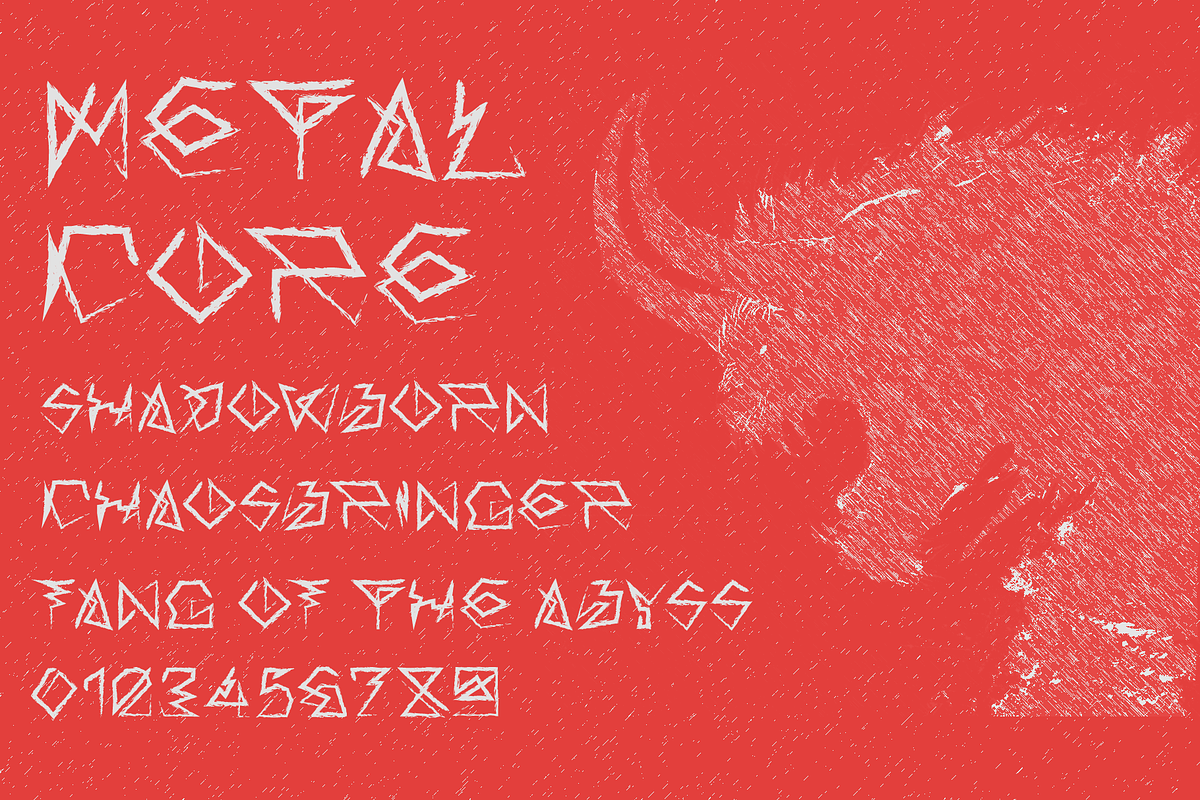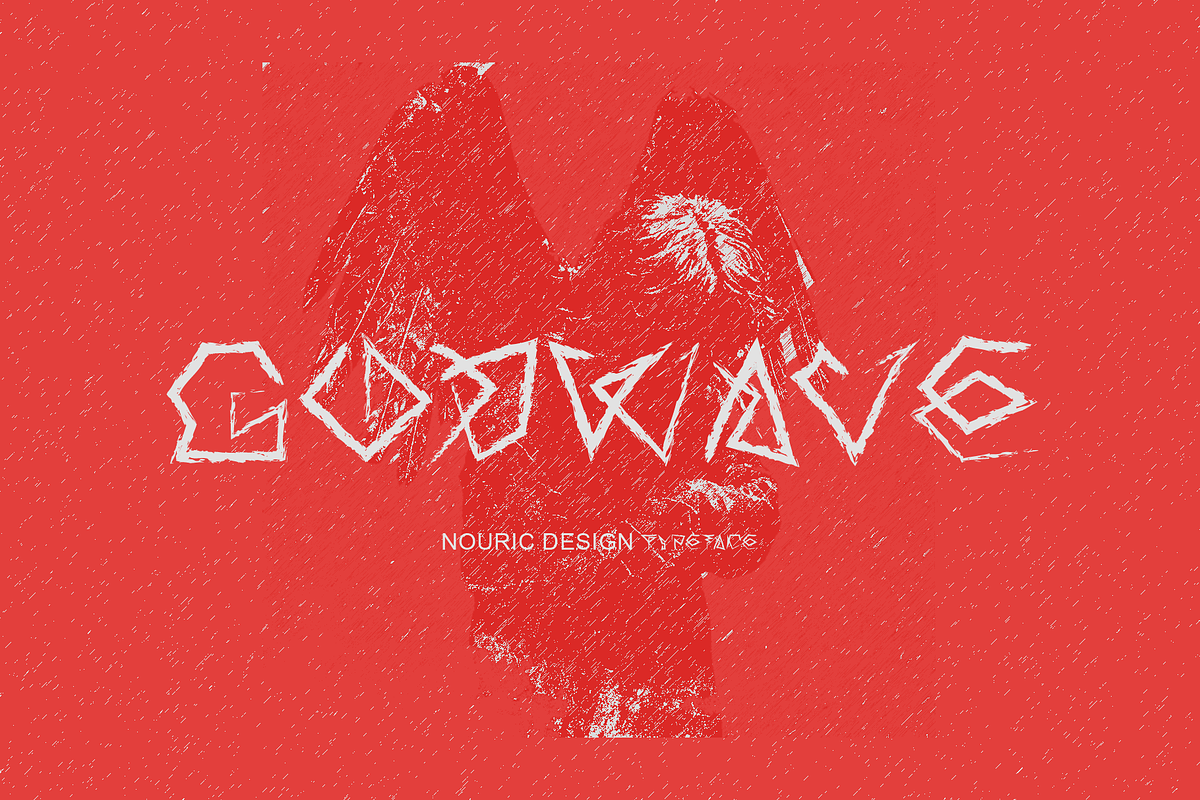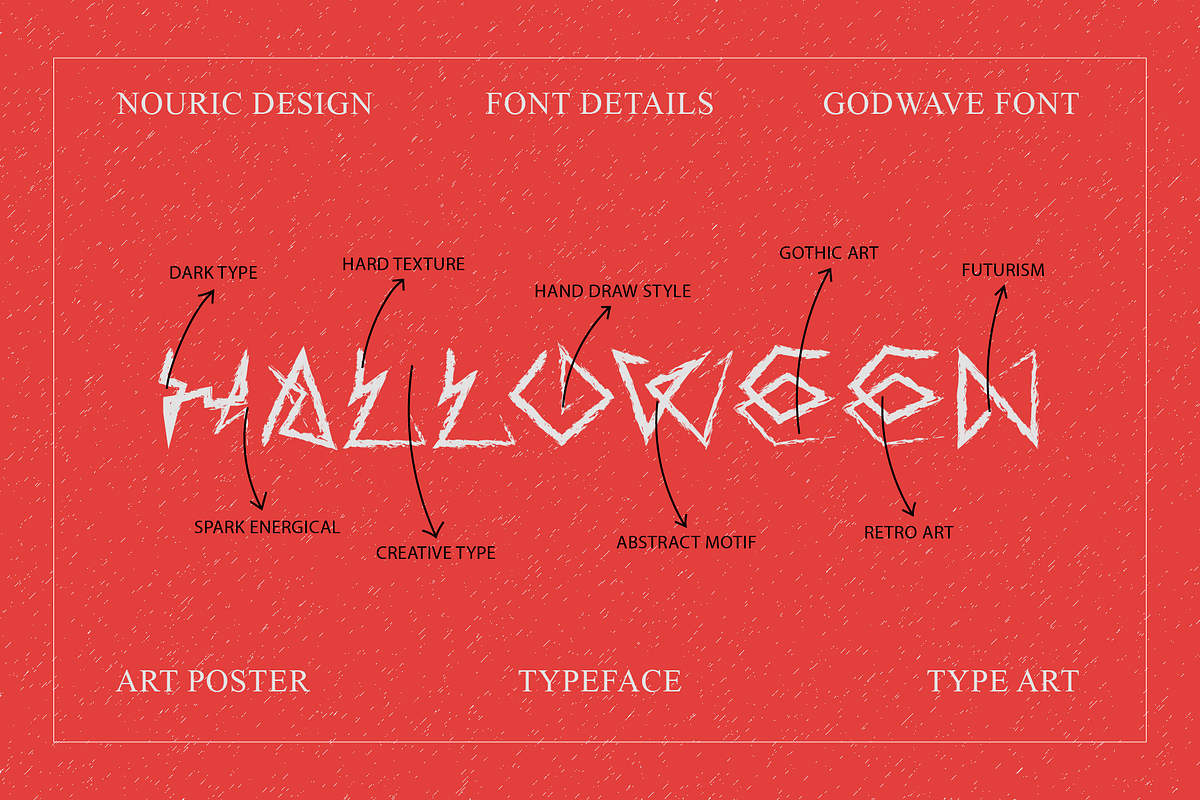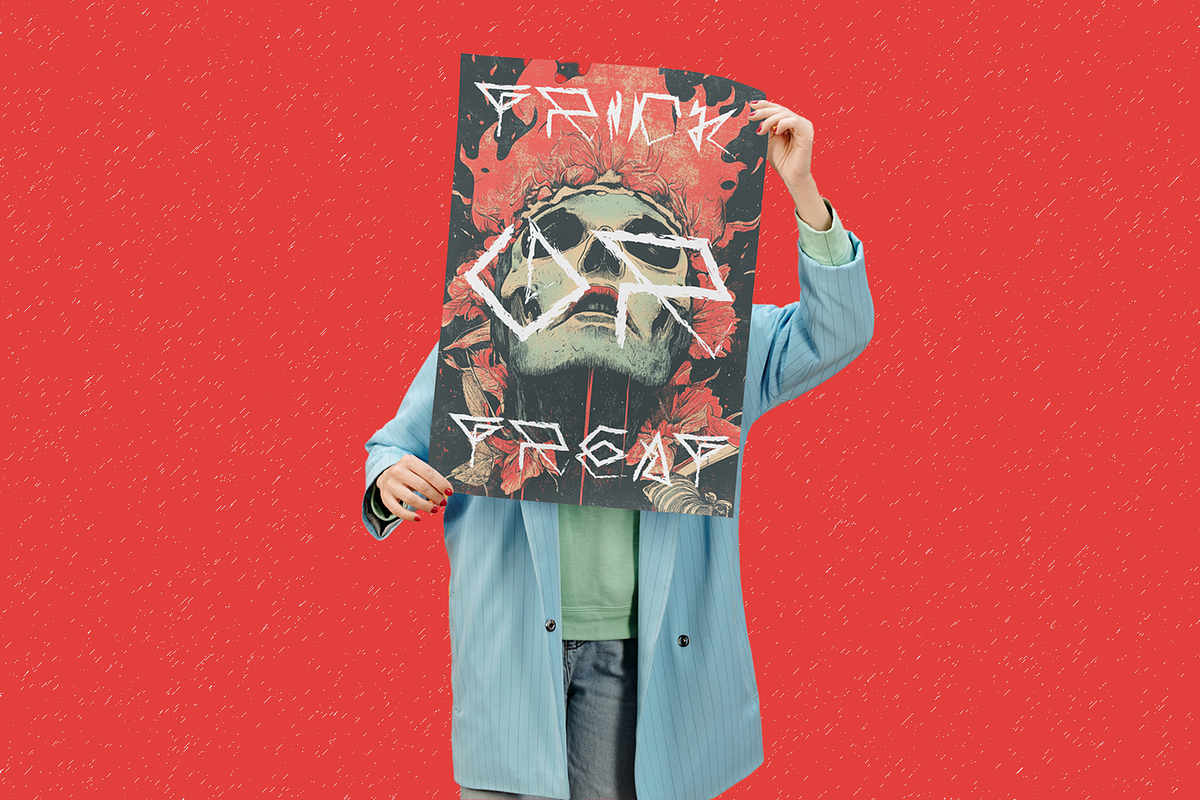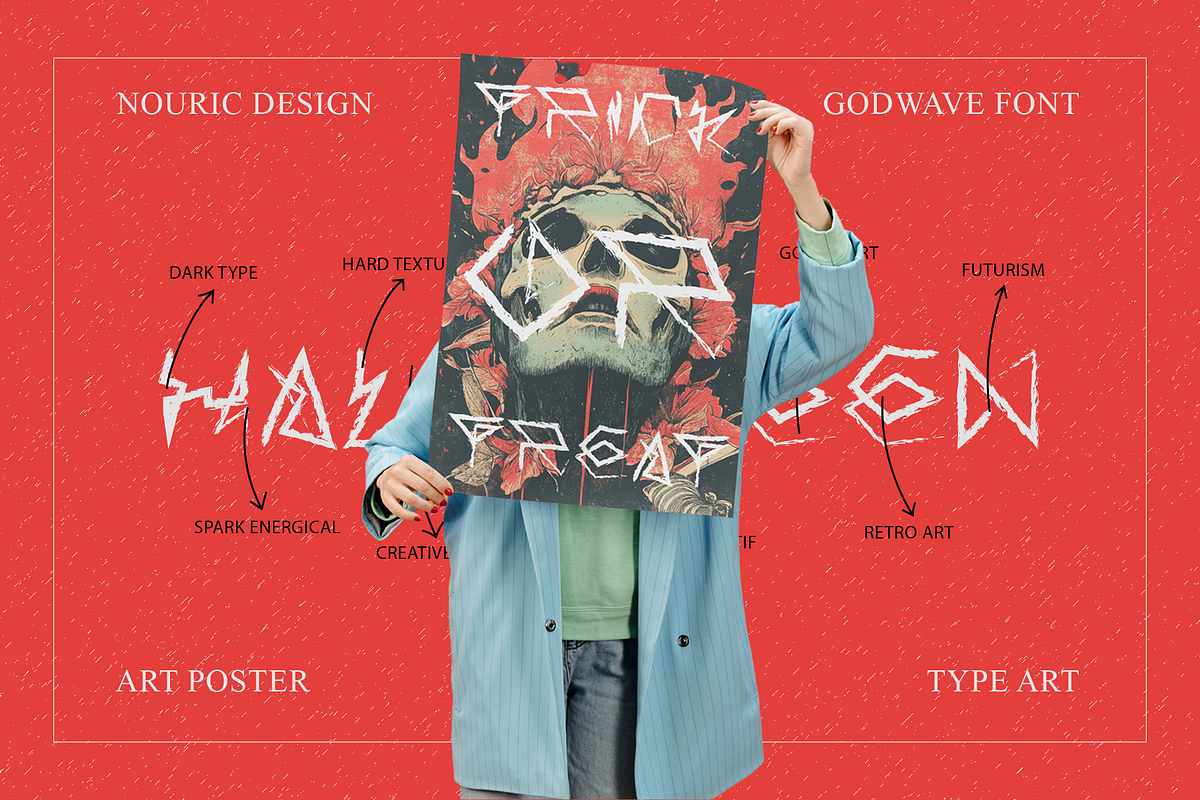
ND Godwave Chaotic Experimental
Unleash the wild side of your designs with our Chaotic Typeface, where structured disorder meets art. This unique typeface is perfect for those looking to break free from the norm, bringing an edgy, unpredictable flair to any project. Ideal for rebellious posters, dynamic logos, and powerful branding, Chaotic Typeface embodies the true spirit of creative chaos.